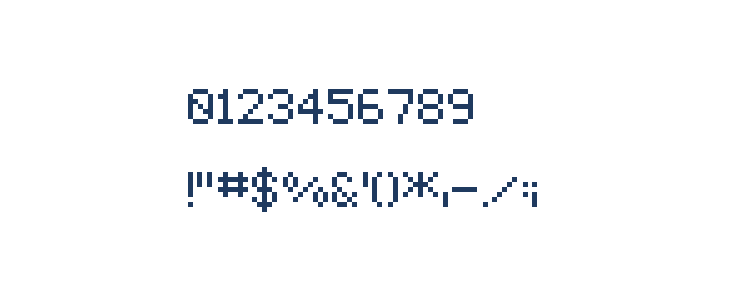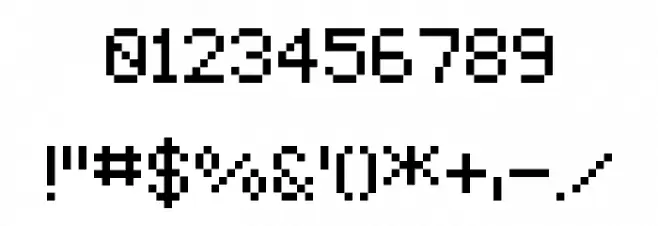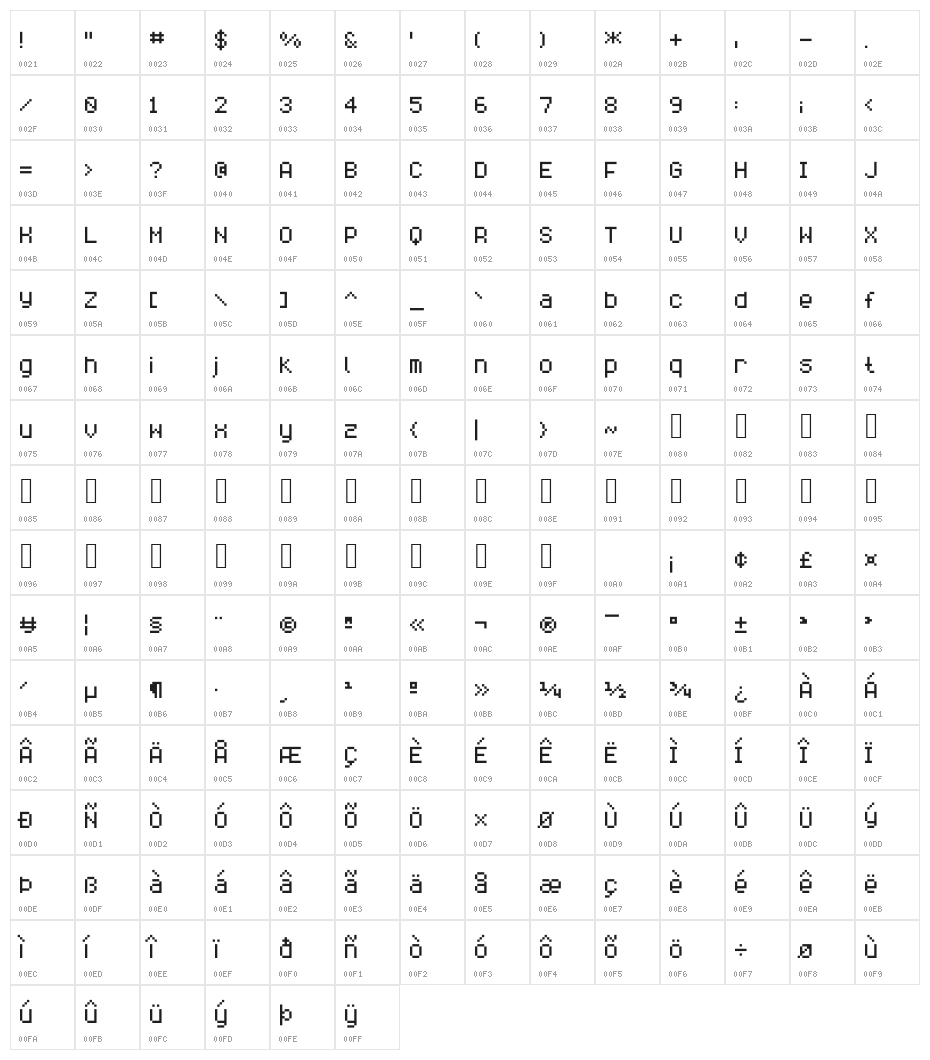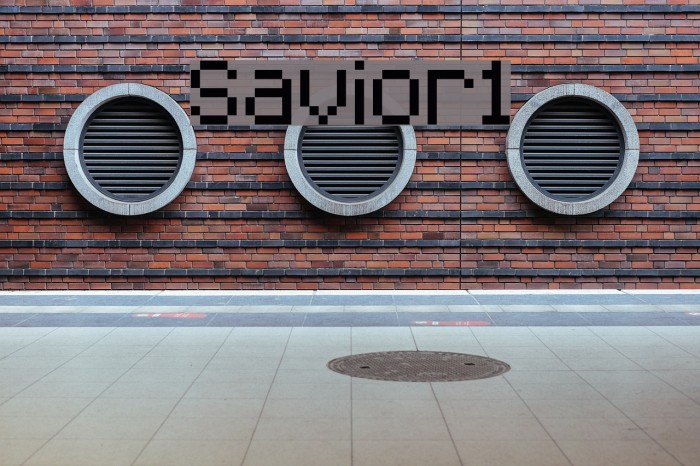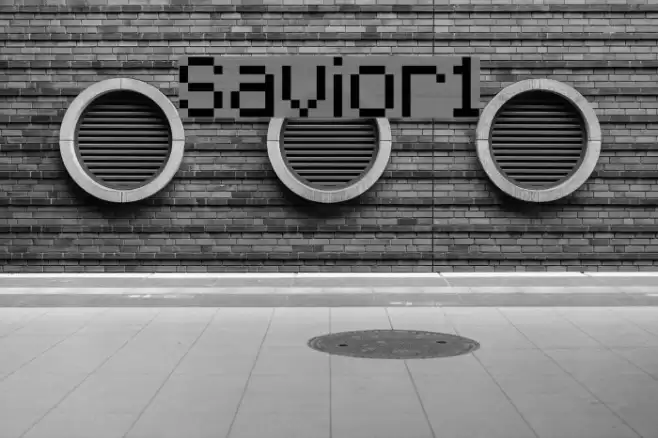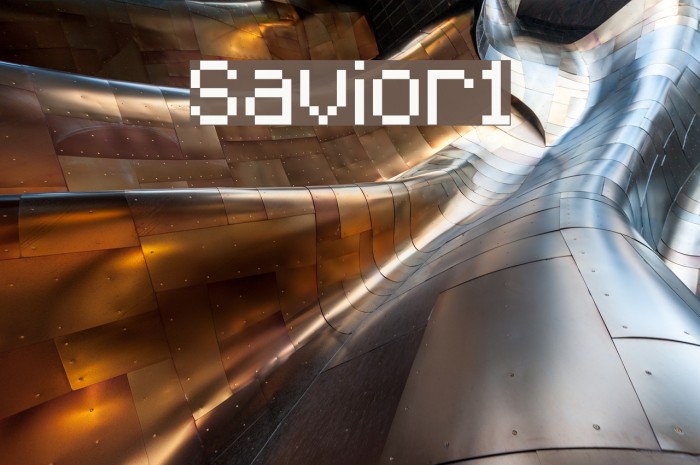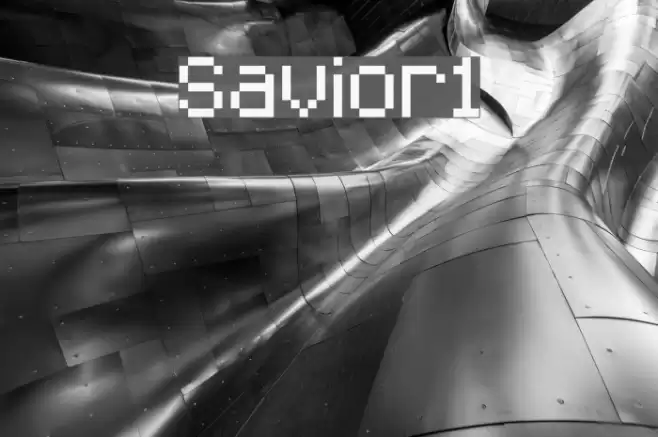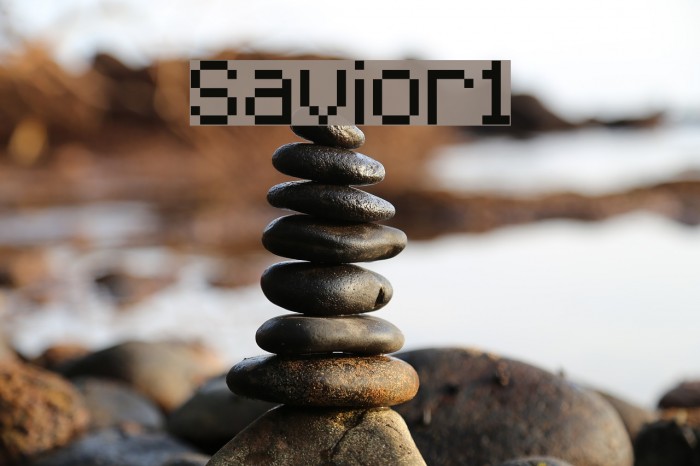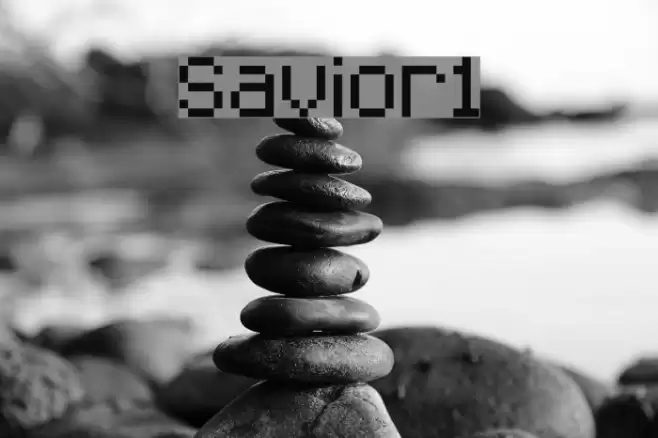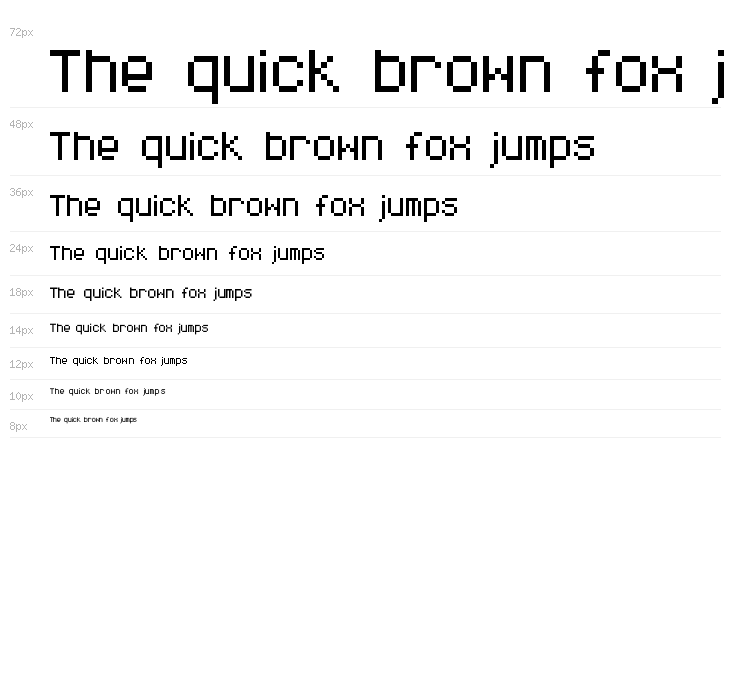
Savior1 Font
Savior1 Description
This font features a pixelated, blocky style reminiscent of early digital or video game typography. Each character is composed of small square blocks, giving it a distinctly retro and technological appearance. The uppercase and lowercase letters maintain a consistent height and width, contributing to a uniform and structured look. The numerals and special characters follow the same design principle, ensuring a cohesive visual identity across all glyphs. This font's design is straightforward, with no curves or embellishments, emphasizing its digital and minimalist aesthetic.
| Use Case | Logos, Headlines, Digital Art |
| Proposed Projects | Ideal for video game design, digital art projects, retro-themed websites, and any creative work that requires a nostalgic digital touch. |